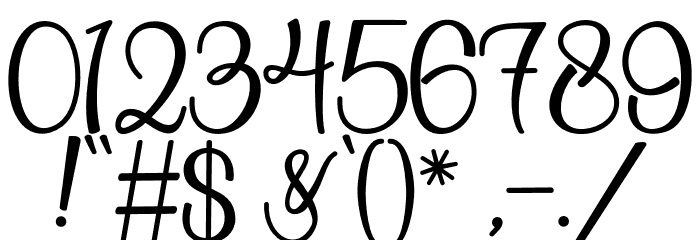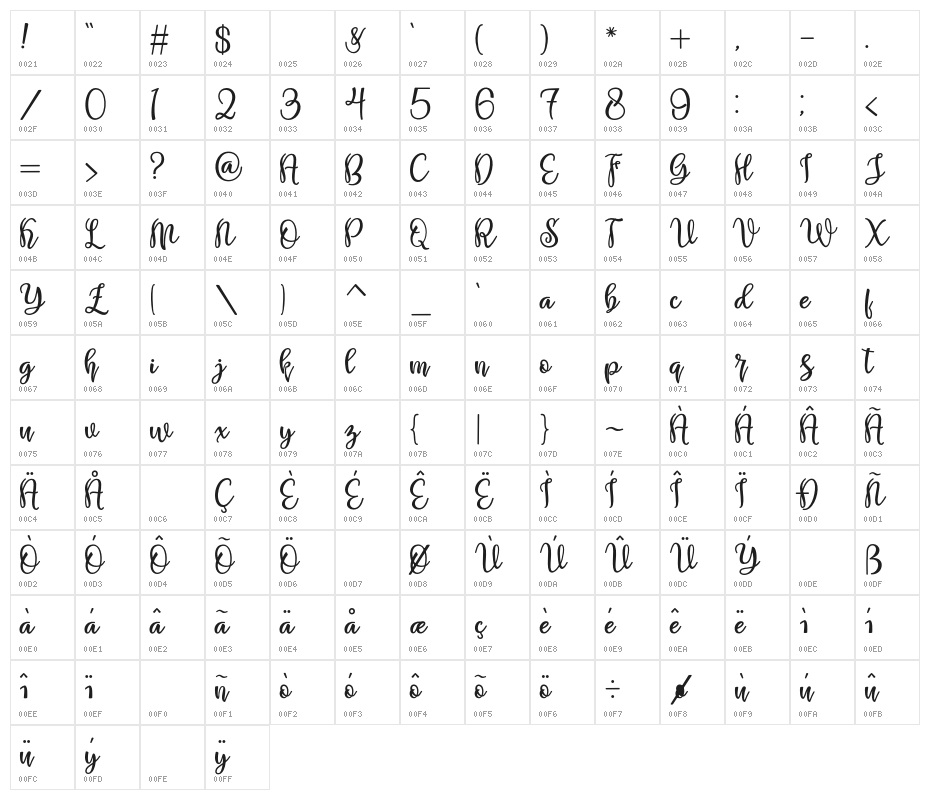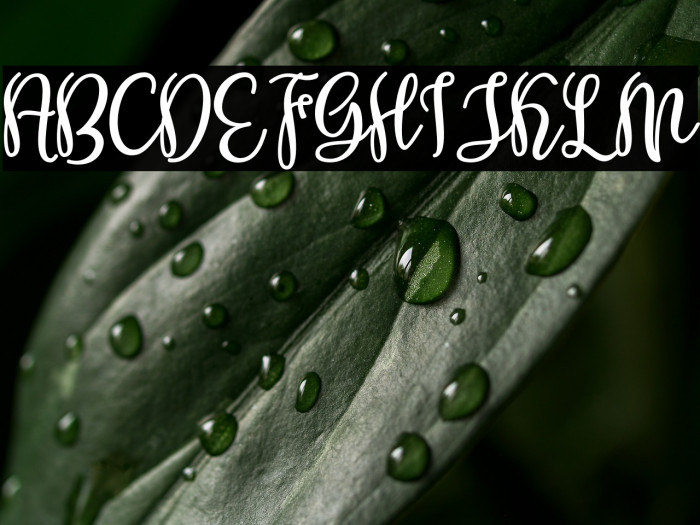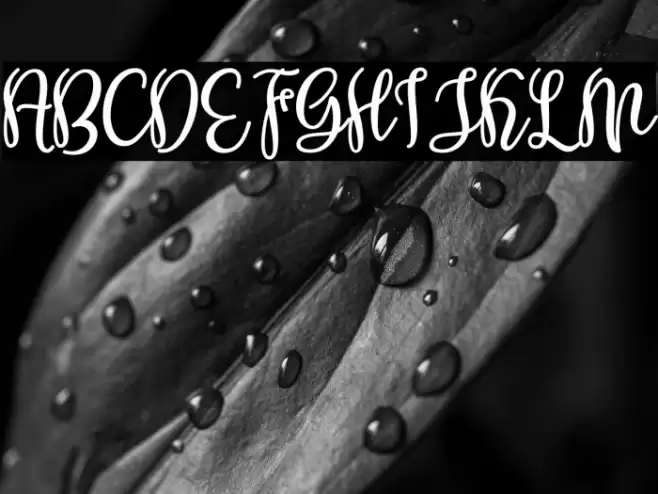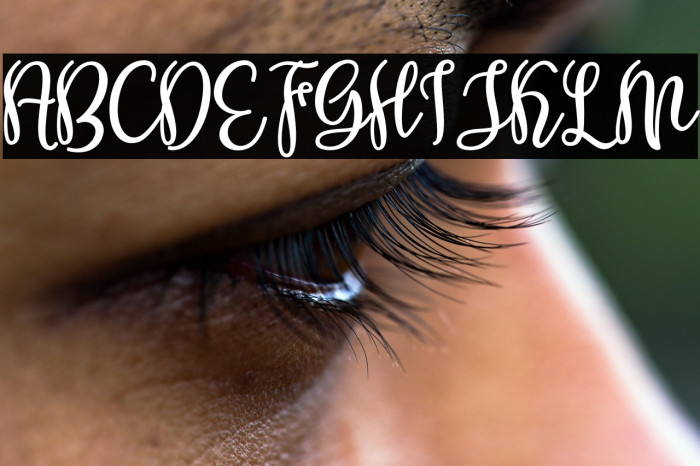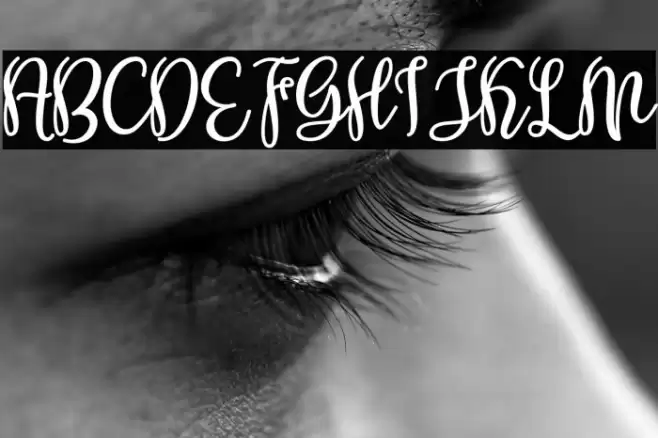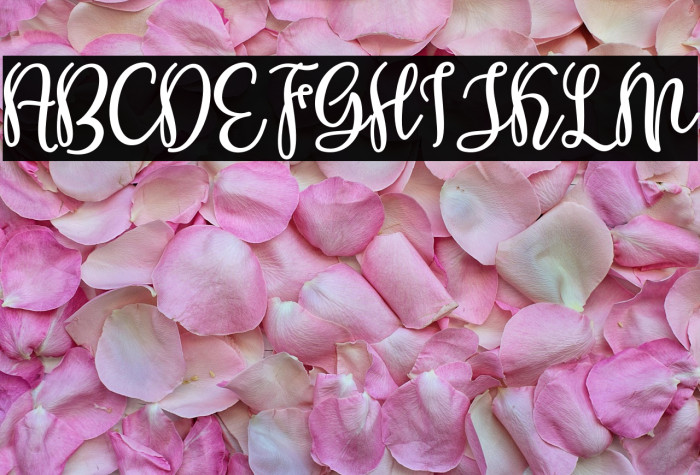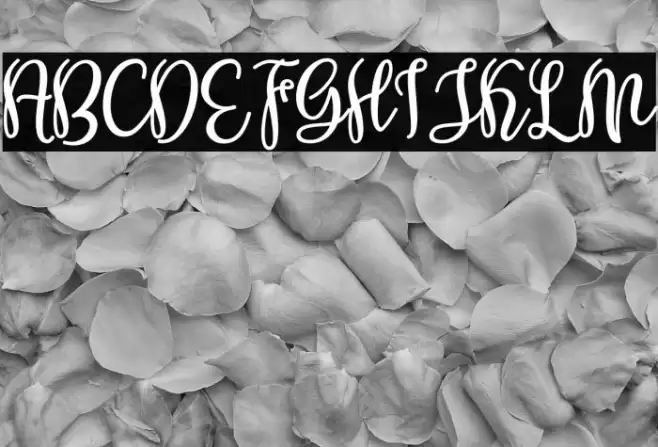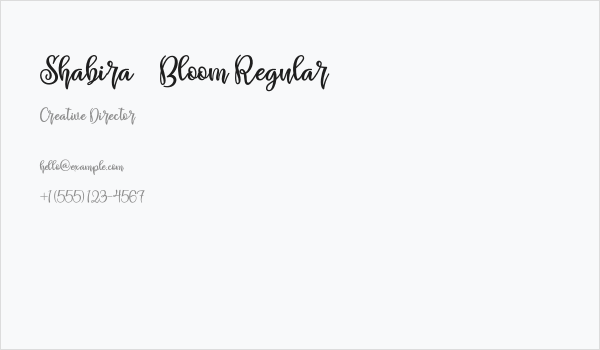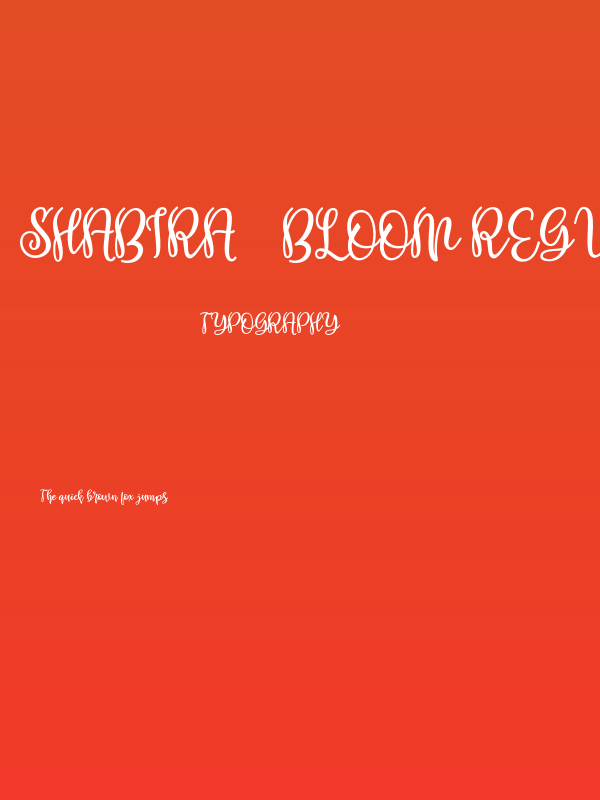
Shabira Bloom Regular Font
Shabira Bloom Regular Description
This font exudes a playful and elegant script style, characterized by its flowing, cursive letterforms. The uppercase letters are bold and dynamic, with a slight slant that adds a sense of movement and fluidity. The lowercase letters maintain a consistent style, featuring smooth curves and loops that enhance its handwritten appearance. The numerals are distinct and easy to read, complementing the overall aesthetic. Special characters are creatively integrated, maintaining the font's cohesive look. This font is ideal for projects that require a personal touch, such as invitations, greeting cards, or branding materials.
Use CaseLogos, Headlines, Decorative text
Proposed ProjectsIdeal for invitations, greeting cards, branding, and personal projects.